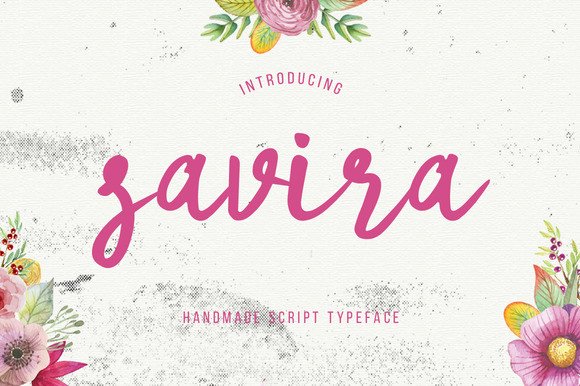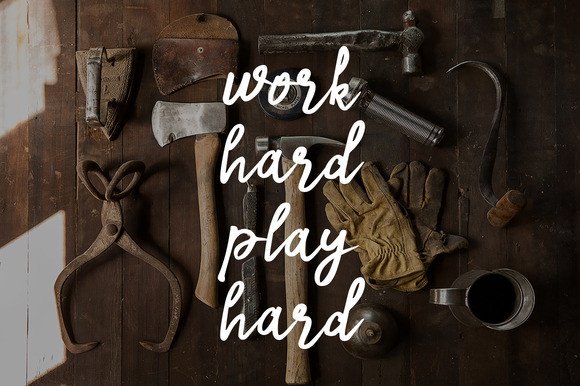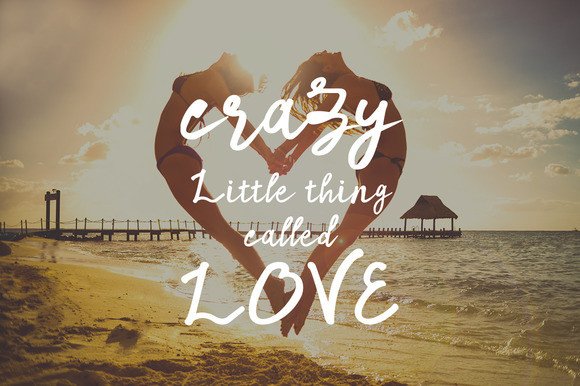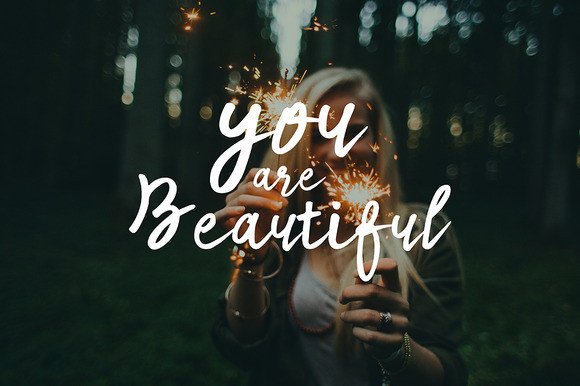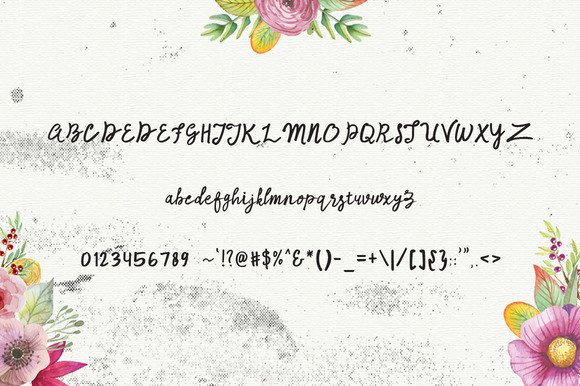
Savira Font
About Savira Font
Savira is a handmade script typeface and will give your designs an elegant and classic touch. It can be used for various purposes such as headings, logos, invitations, t-shirt designs, greeting cards, posters, labels, book covers, brochures, and much more!